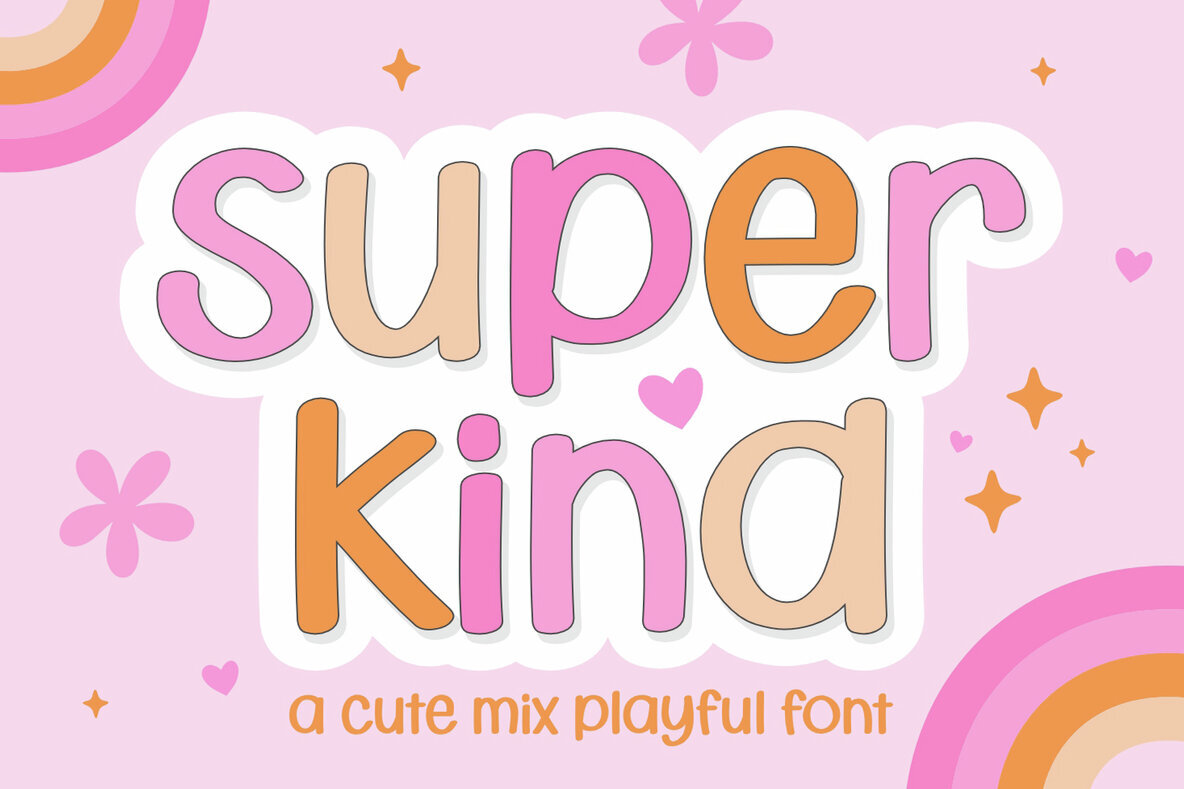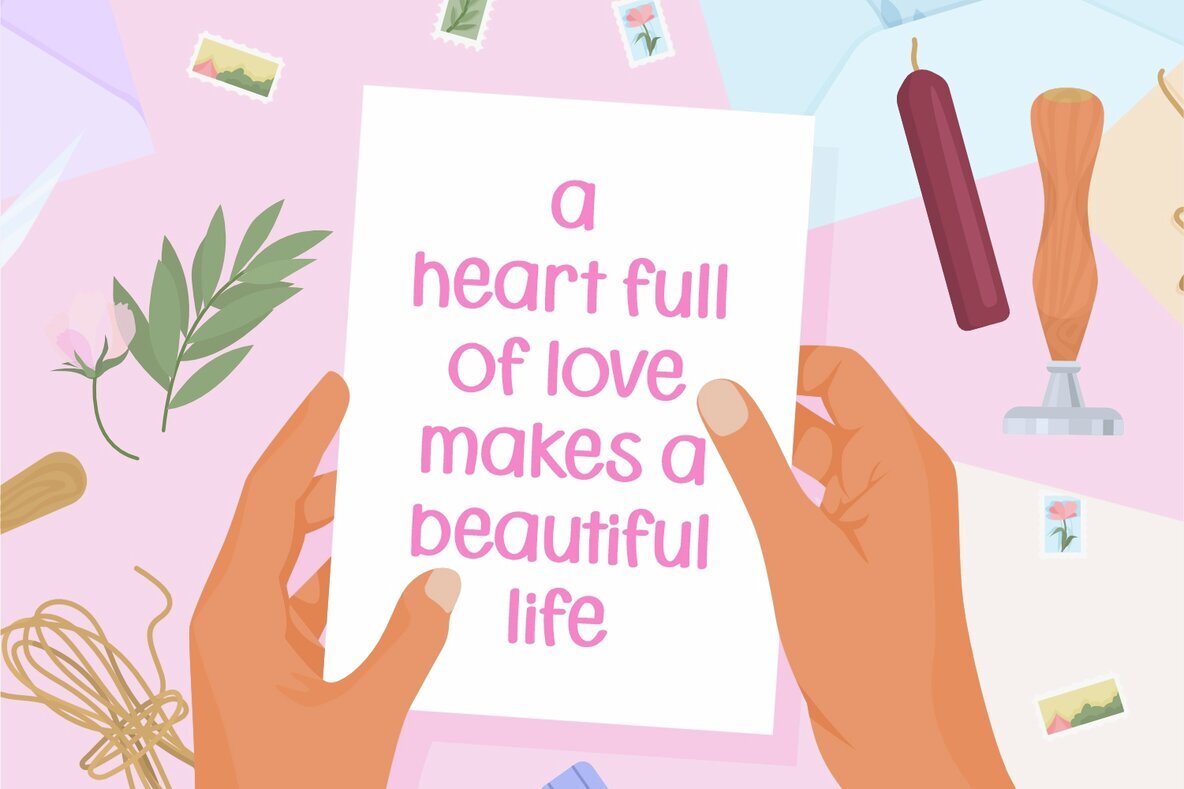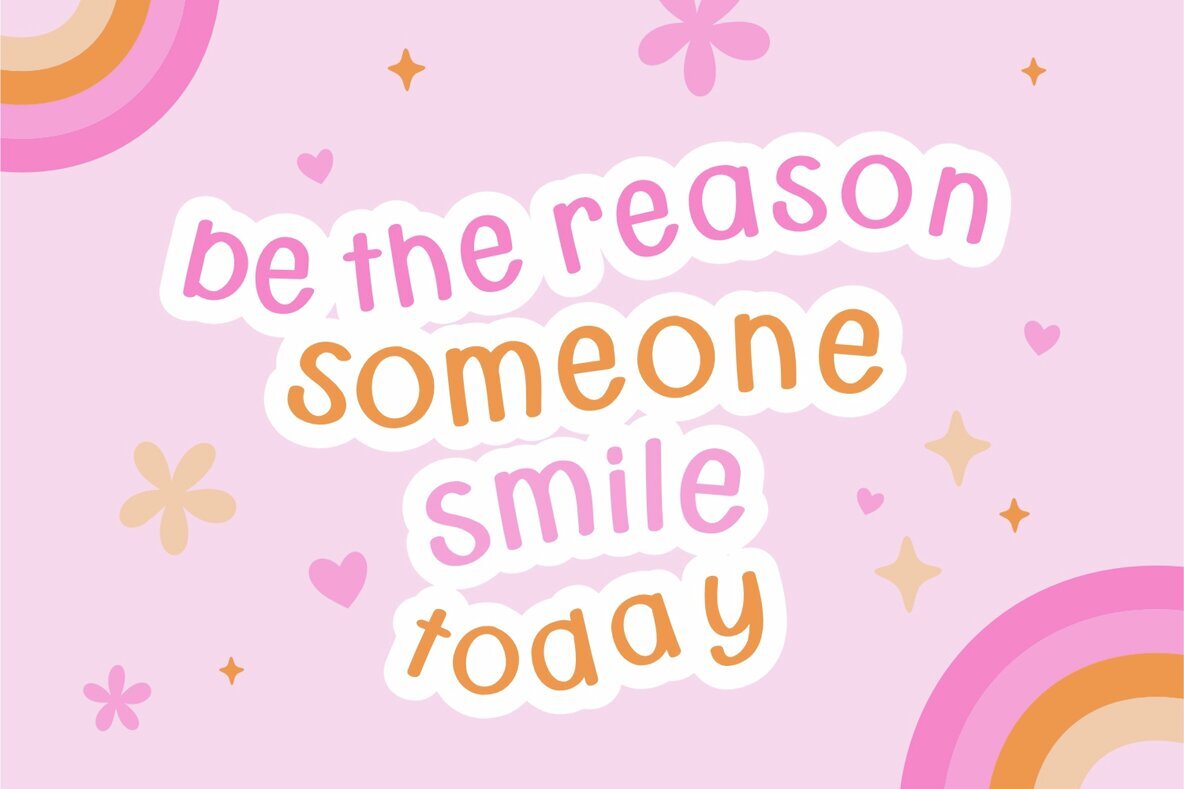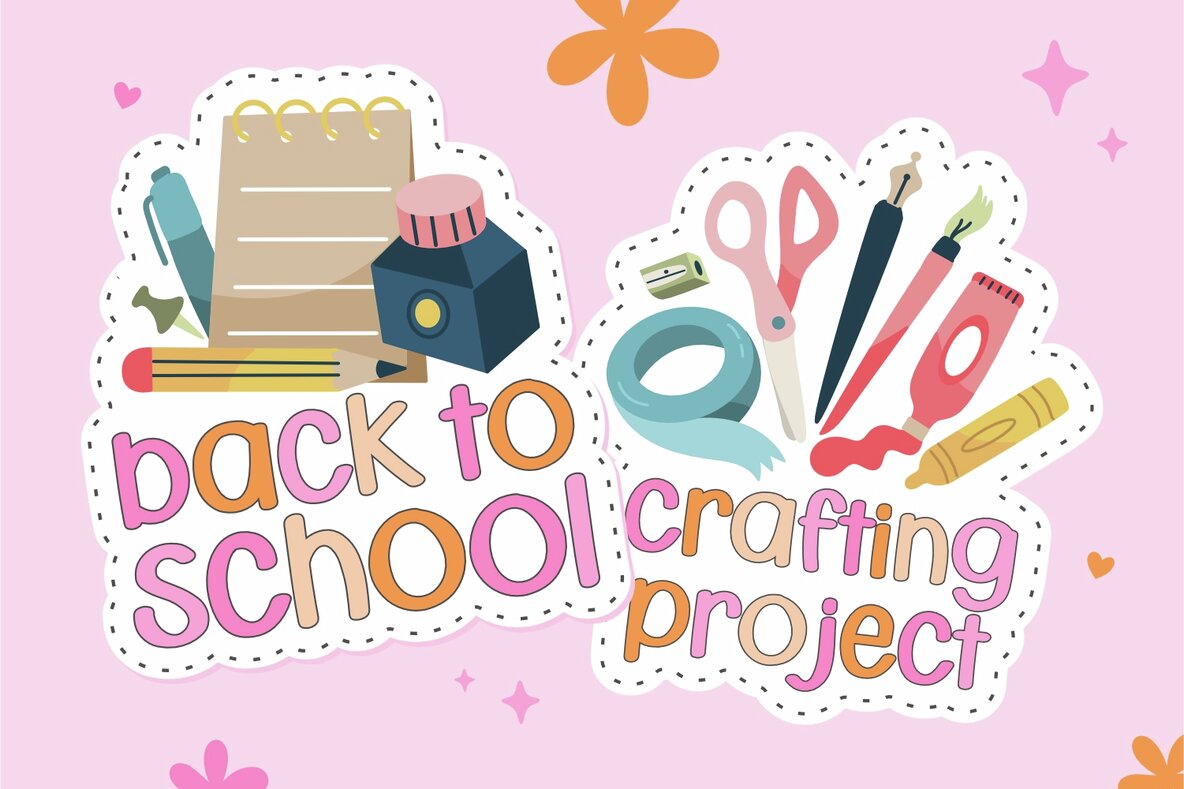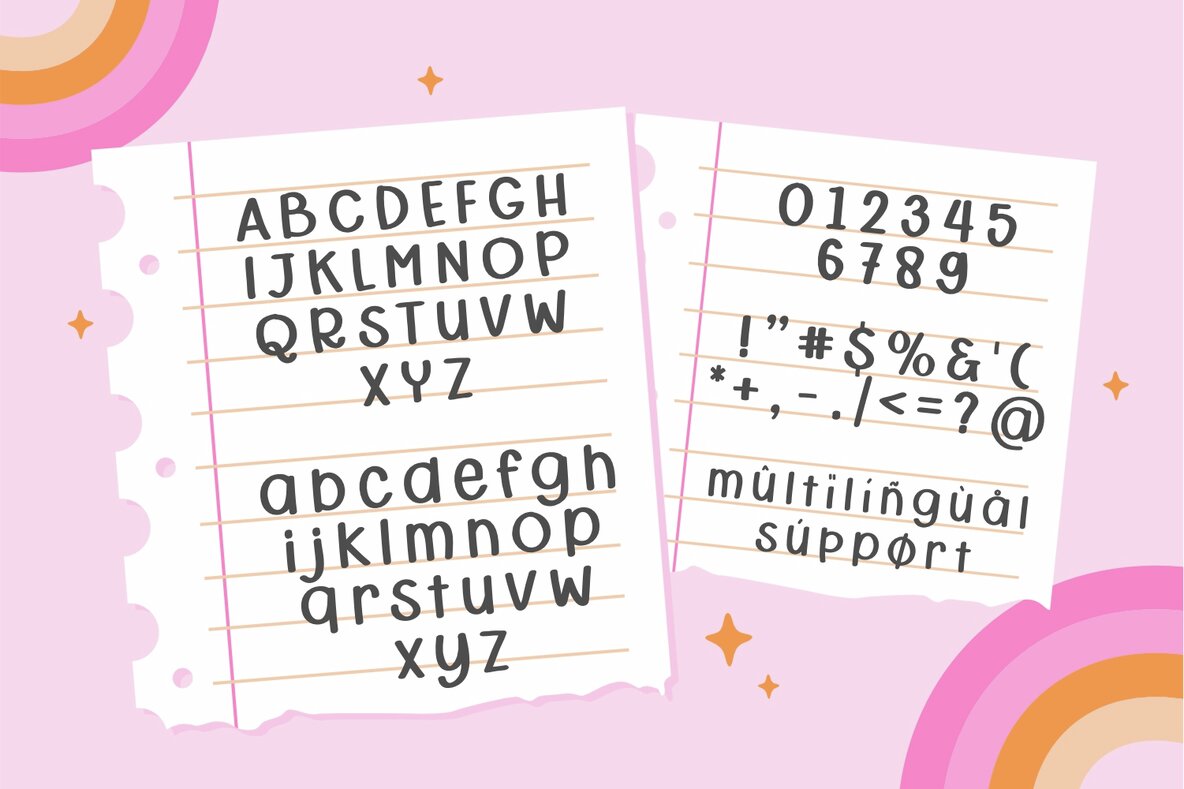
Super Kind Font
Super Kind is a delightful handwritten font designed to add charm and a playful touch to any creative project. Whether you're crafting blog posts, designing birthday invitations, or personalizing school planner pages, Super Kind is your go-to option for adding warmth and personality. This font's unique style makes it perfect for heartfelt greeting cards and sincere thank-you notes, offering a touch of sincerity and simplicity.
Ideal for enhancing photo albums, Super Kind infuses your memories with adorable flair, making them truly unforgettable. With its cute simplicity, this font provides a new avenue for delightful personalization across various creative endeavors. Embrace the endless possibilities that Super Kind brings to your design repertoire and watch it transform your projects with its inviting and cheerful aesthetic.